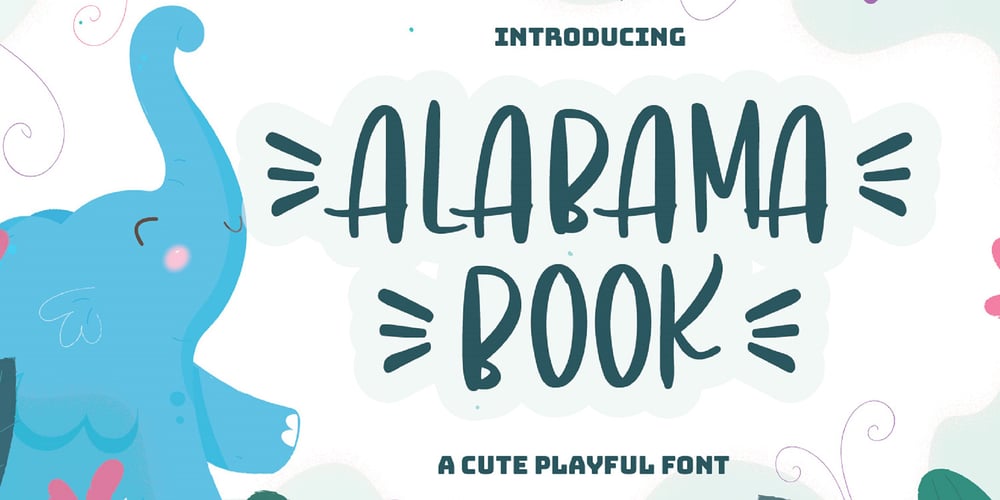
Alabama Book Font Family was designed by Heri Imanudin and published by Krafted. Alabama Book contains 1 styles and family package options. Looking for a cute and playful font to delight your guests? If you’re hosting a baby shower, birthday party, or need a versatile font for printed materials – then we’ve got the font that’ll make your branding sparkle! Introducing Alabama Book – A Cute Playful Font This adorable, fun, and stylish font can be used for a host of different content needs and projects. Create gorgeous party invitations, printed quotes, standout packaging, or beautiful t-shirts! You can even use it to create amazing headings, logos, resumes, and social media graphics. Inspire your audience, clients, or guests with this beautiful, statement font. What you’ll get: Multilingual & Ligature Support Full sets of Punctuation and Numerals Compatible with: Adobe Suite Microsoft Office KeyNote Pages Software Requirements: The fonts that you’ll receive in the pack are widely supported by most software. In order to get the full functionality of the selection of standard ligatures (custom created letters) in the script font, any software that can read OpenType fonts will work. We hope you enjoy this font and that it makes your branding sparkle! Feel free to reach out to us if you’d like more information or if you have any concerns.